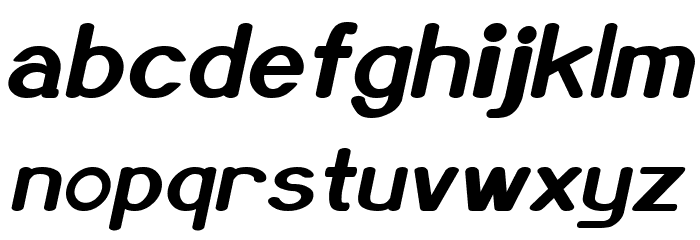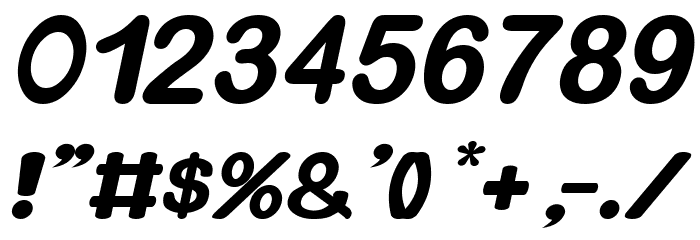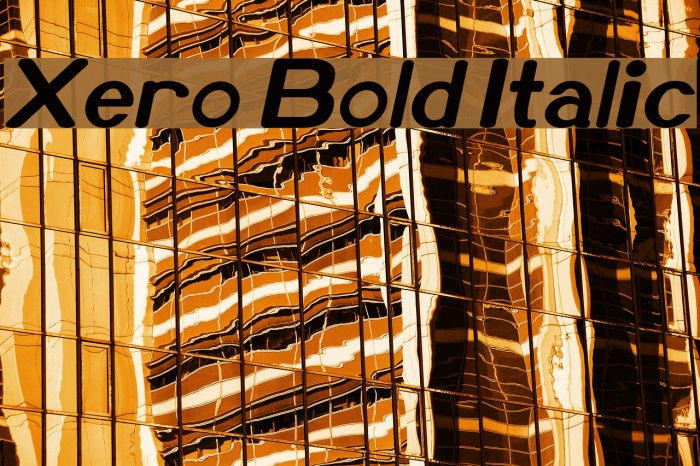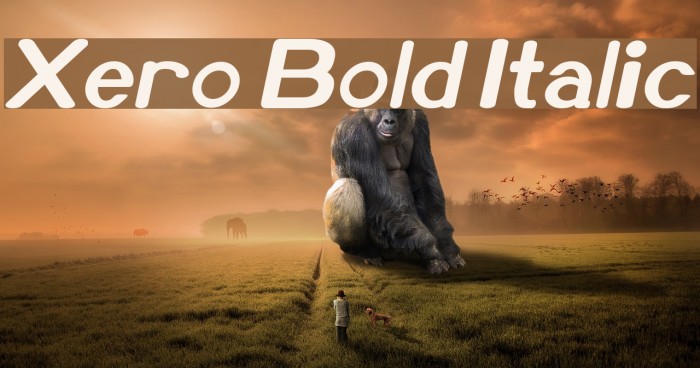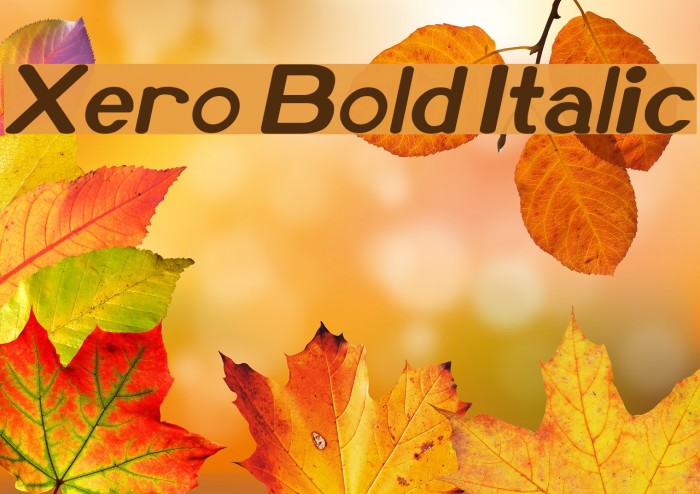
Xero Bold Italic Font
This font features a bold and italic style, characterized by its smooth, rounded edges and consistent stroke weight. The letters are slightly slanted, giving a dynamic and modern appearance. The uppercase and lowercase letters maintain a uniform width, contributing to a cohesive look. The numerals are clear and legible, matching the style of the alphabet. Special characters are well-integrated, ensuring versatility in various design contexts. The overall impression is one of strength and fluidity, making it suitable for both digital and print media.
A bold, italic font with smooth, rounded edges and a modern slant.
- Proposed Projects: Ideal for branding, advertising, and headlines where a modern and bold statement is needed.
- Use Case: Headlines, Logos, Branding